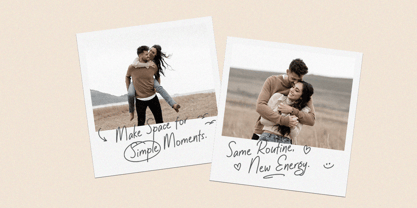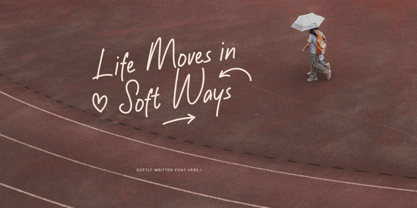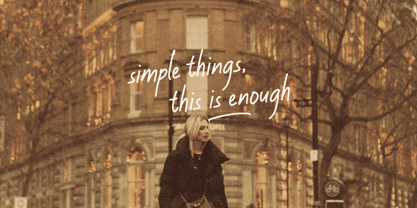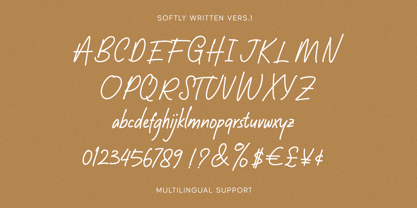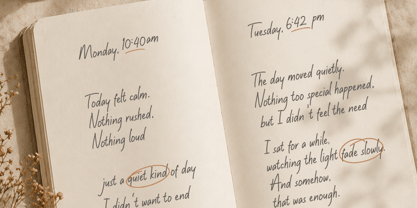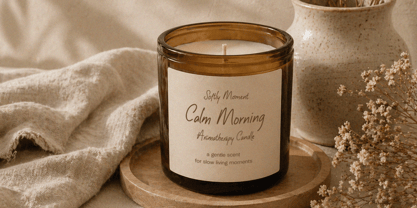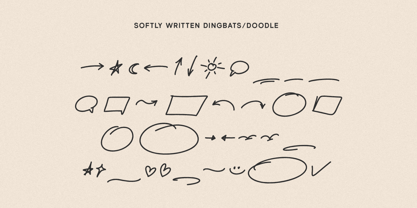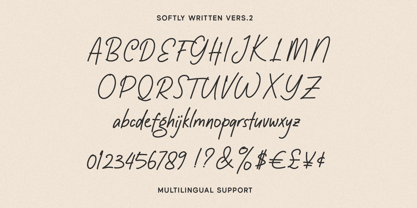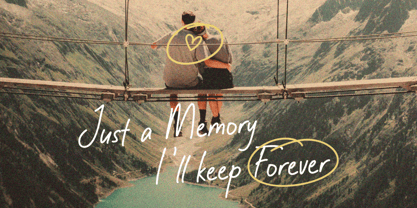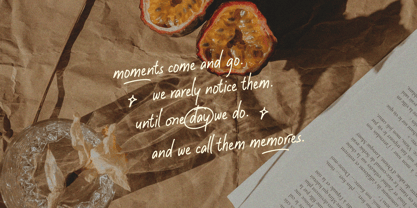
Softly Written
The Softly Written Font Family was designed by Aryo Pamungkas and published by Littlehand. Softly Written contains 3 styles and family package options. More about this family
Softly Written feels like little notes scribbled in a cozy journal, with smooth handwritten strokes and playful doodles that make every word look warm and friendly. The letters flow naturally with a simple everyday charm, giving this font a cute relaxed vibe that feels honest, casual, and full of tiny happy moments.
Features :
• Uppercase & lowercase
• Numbers and punctuation
• Alternates & Ligatures
• Multilingual Support
Littlehand is a collective type foundry based in Yogyakarta, Indonesia, focused on designing playful, cute, and cheerful fonts. As part of the Letterhend studio, Littlehand was created as a dedicated space to explore friendly and expressive typography with a warm and approachable character. Littlehand’s typefaces are thoughtfully crafted to support creative projects that value joy and personality, including children’s designs, branding, packaging, social media, and visual storytelling.